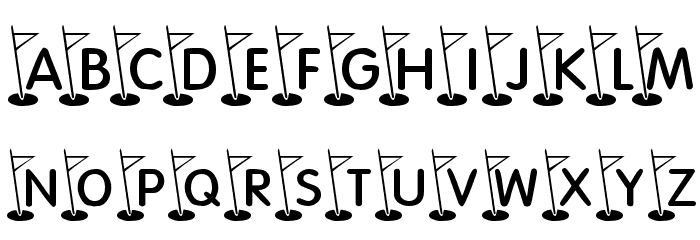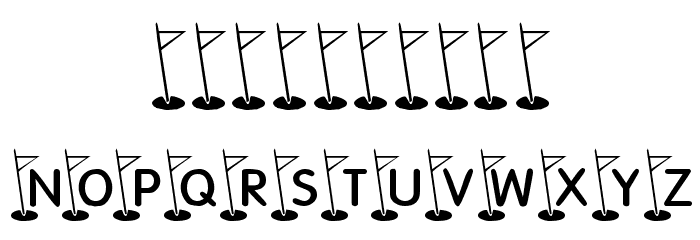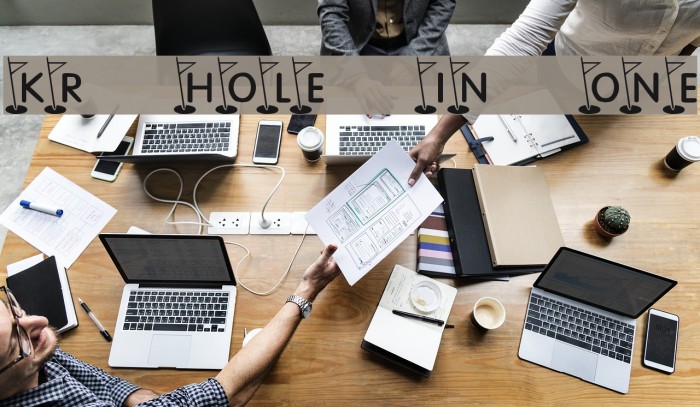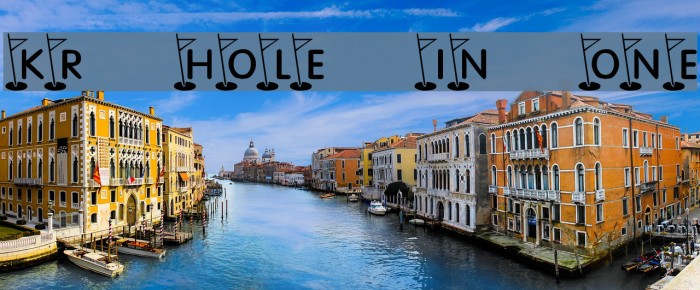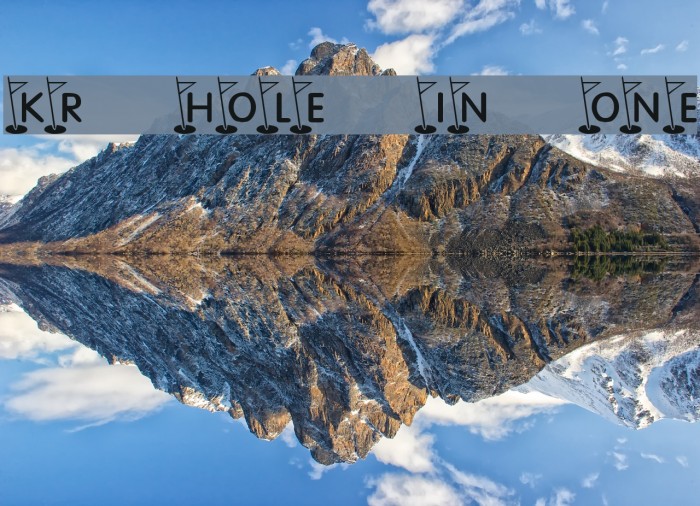
KR Hole In One! Font
This playful and thematic font features each letter adorned with a golf flag, creating a unique and sporty aesthetic. The characters are bold and slightly rounded, with a consistent width that maintains readability while adding a decorative flair. The integration of the golf flag into each letterform makes it ideal for projects related to sports, particularly golf, or any design seeking a fun and whimsical touch. The font's distinct style is both eye-catching and memorable, making it suitable for headlines, logos, and themed event materials.
A playful, golf-themed font with bold, rounded letters and integrated flag motifs.
- Proposed Projects: Ideal for sports-themed designs, golf event promotions, playful branding, and decorative headlines.
- Use Case: Headlines, Logos, Themed Events